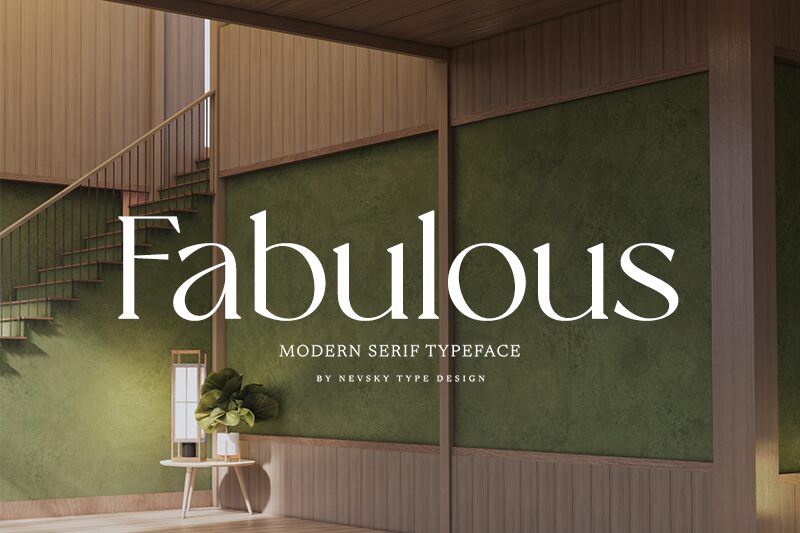
NTFabulousalternative
NT Fabulous is an elegant serif font designed by Artem Nevsky. Its subtle light weight offers a unique look perfect for crafting projects such as invitations, greeting cards, logos, posters and magazine layouts. It's a great choice for anyone looking to add an extra touch of sophistication to their designs. With its delicate curves and sharp edges, NT Fabulous provides a timeless look that will never go out of style.